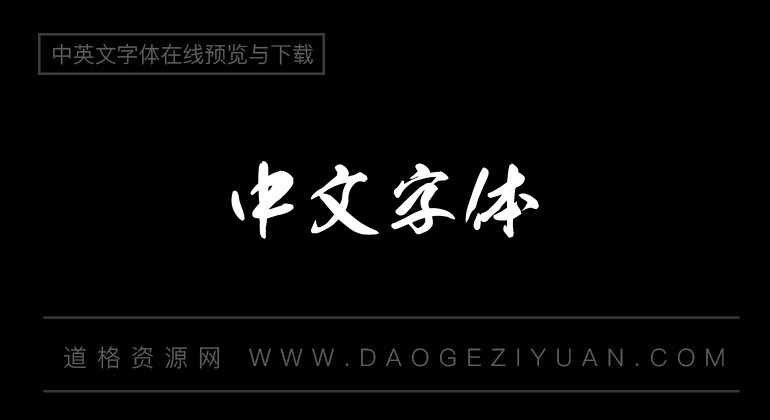
KSO Raytheon font is a very popular Chinese character font designed by Korean designer KSO Company. It is famous for its simple, elegant and exquisite design style, with good readability and visual effects. The KSO Thor font has a large character width and a low character height, which makes the font look more refined, and it also has a large character spacing, which makes the font look more legible. The characters of the KSO Thor font are also relatively regular, making the font look more beautiful.Content introduction
KSO Raytheon is a very good handwriting art font, with a good visual sense, suitable for cultural propaganda design, commercial brand advertising and product packaging design and personalized text typesetting and other more scenes.